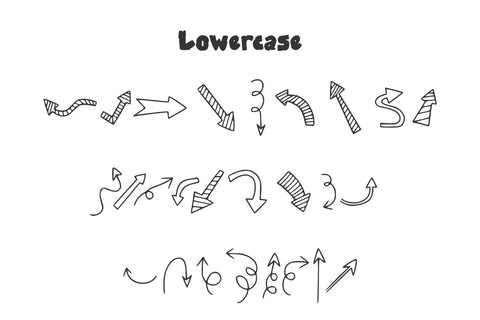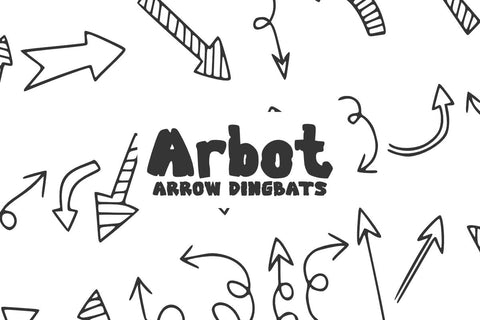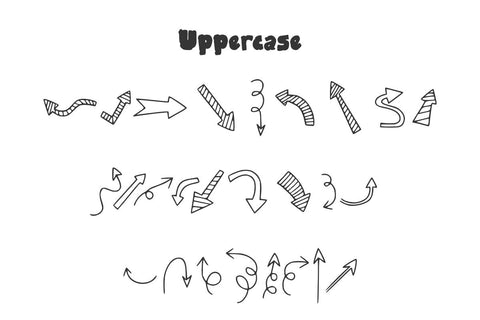
Ardot - Cute Doodle Dingbat
Ardot is an Arrow font with a doodle art illustration style. This font can enhance your creative projects such as, Social Media, Greeting cards, invitations, covers, and many other creative ideas